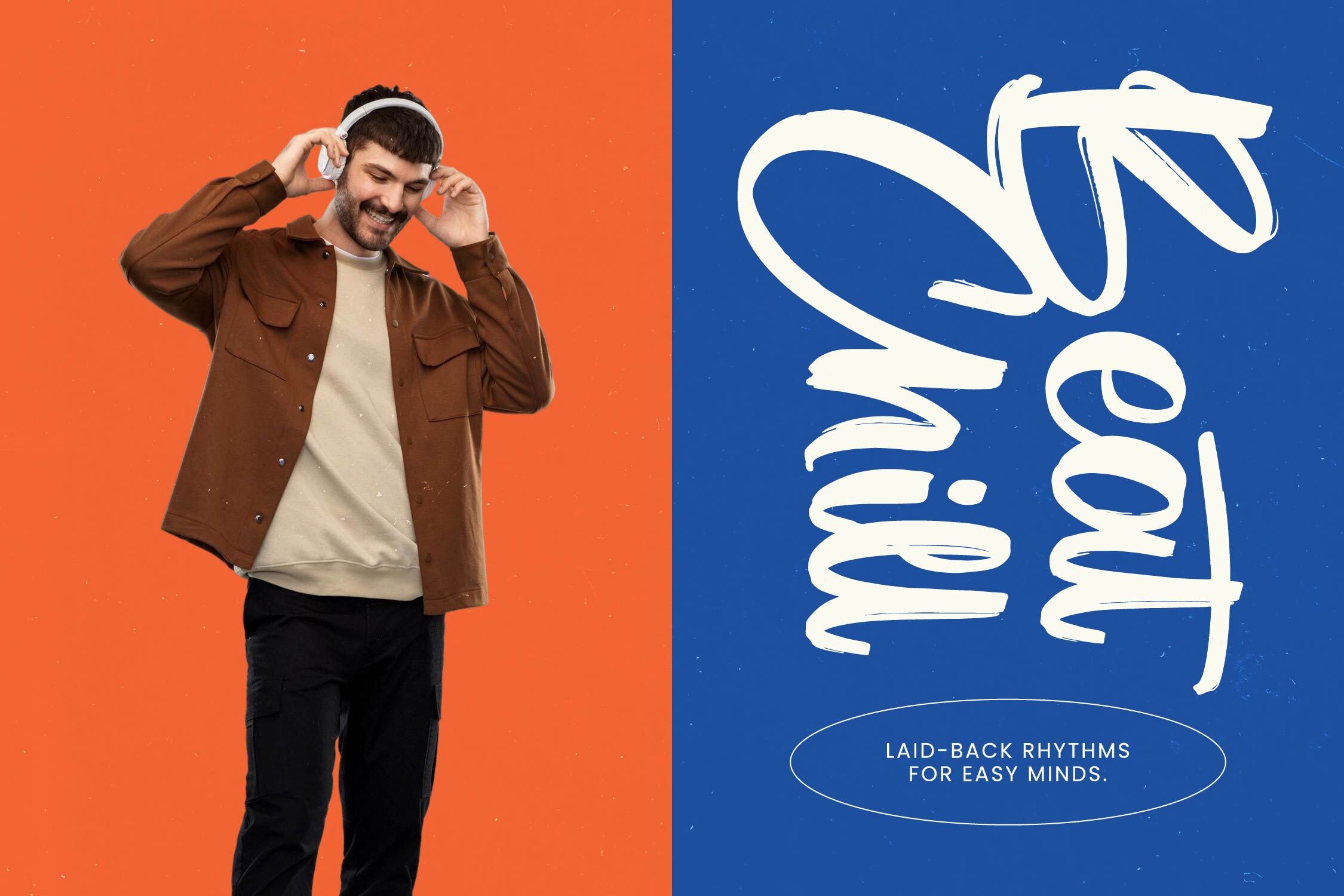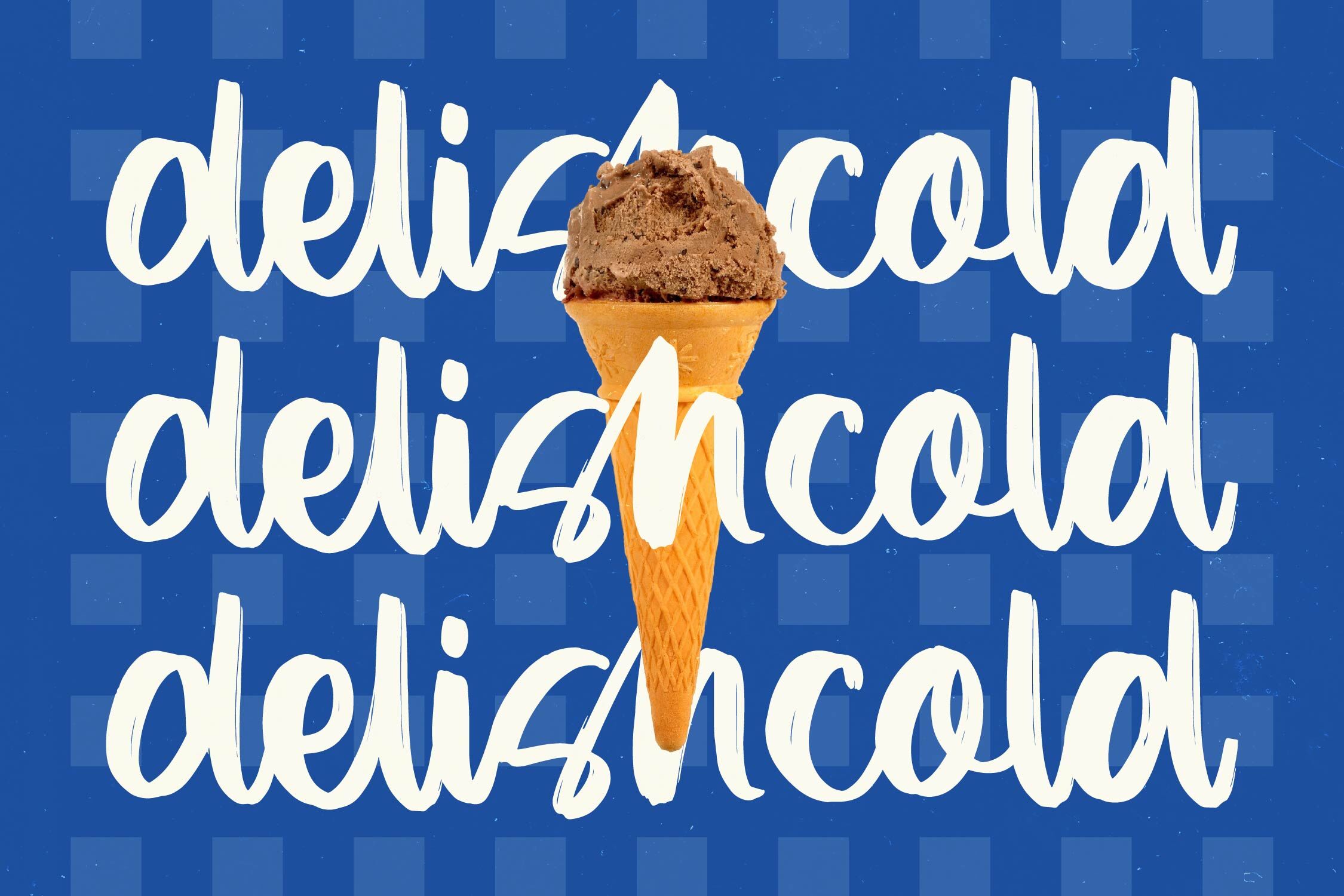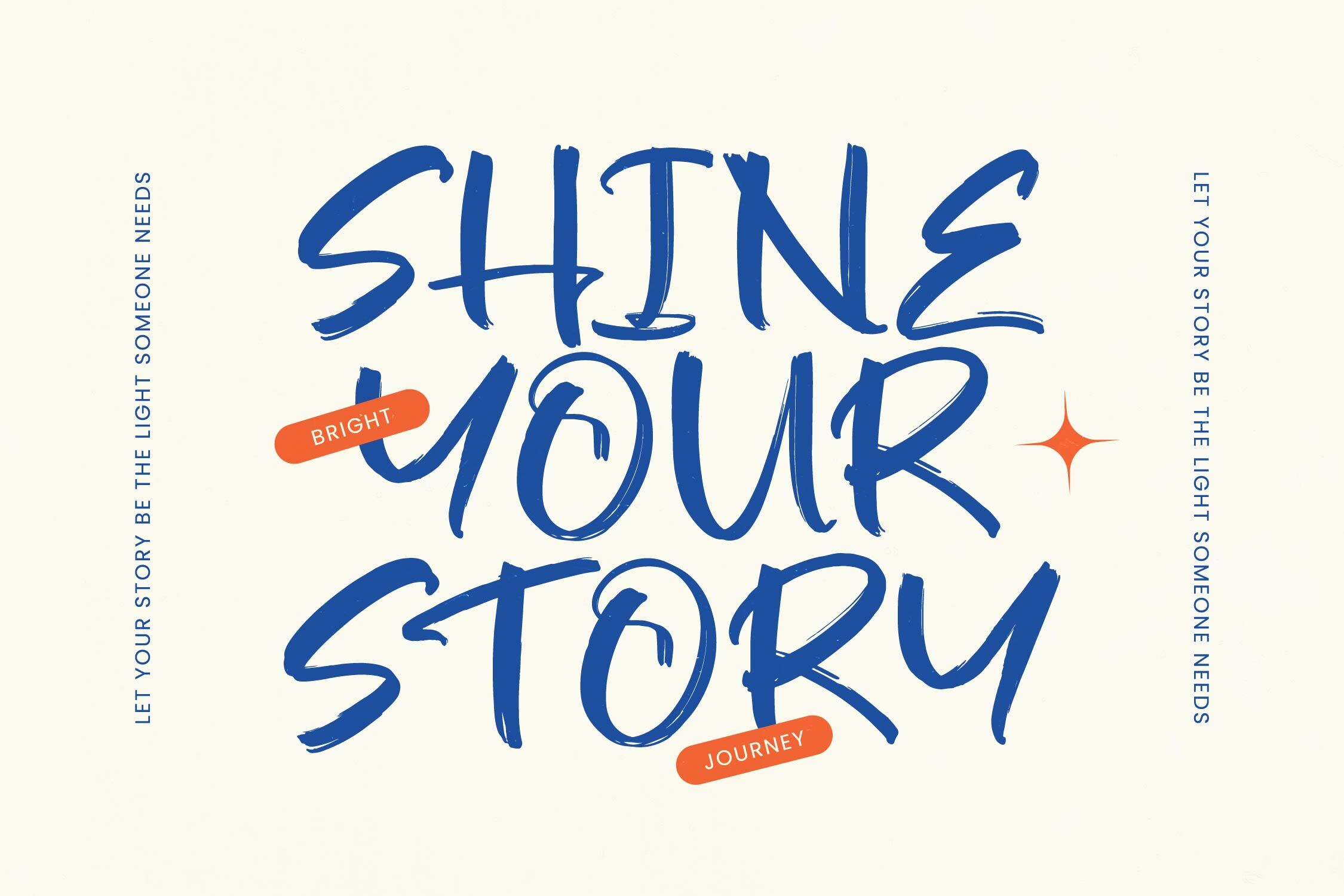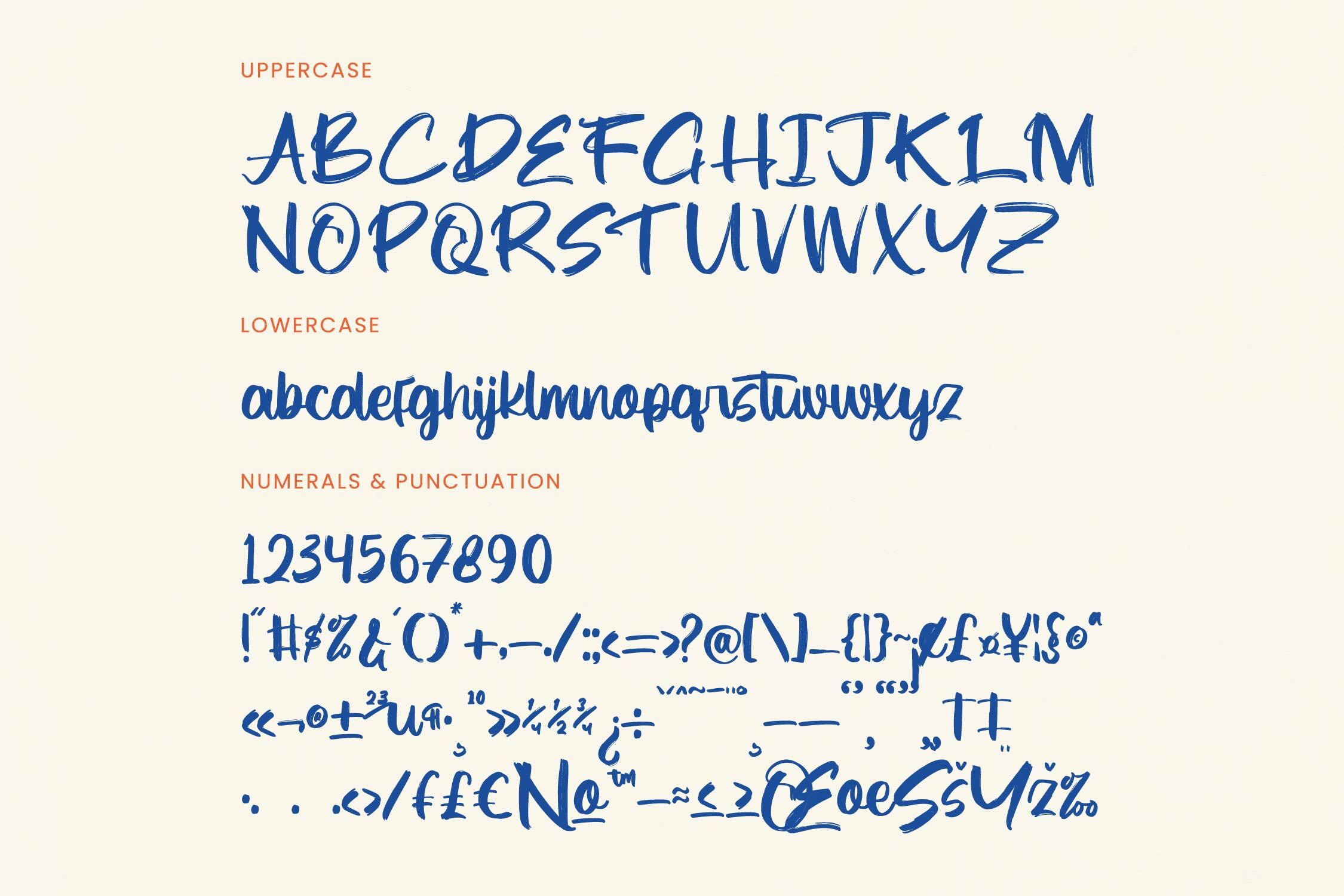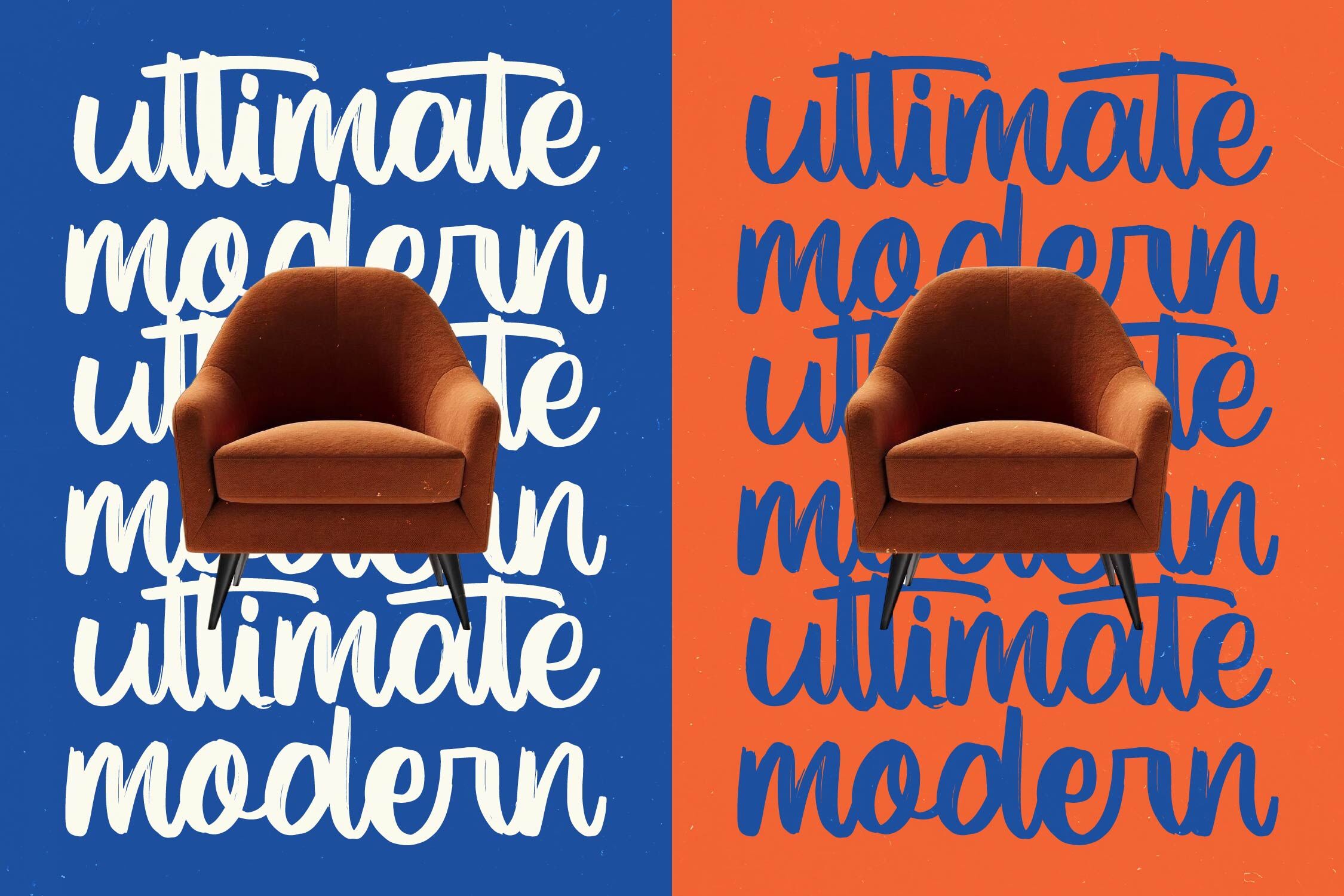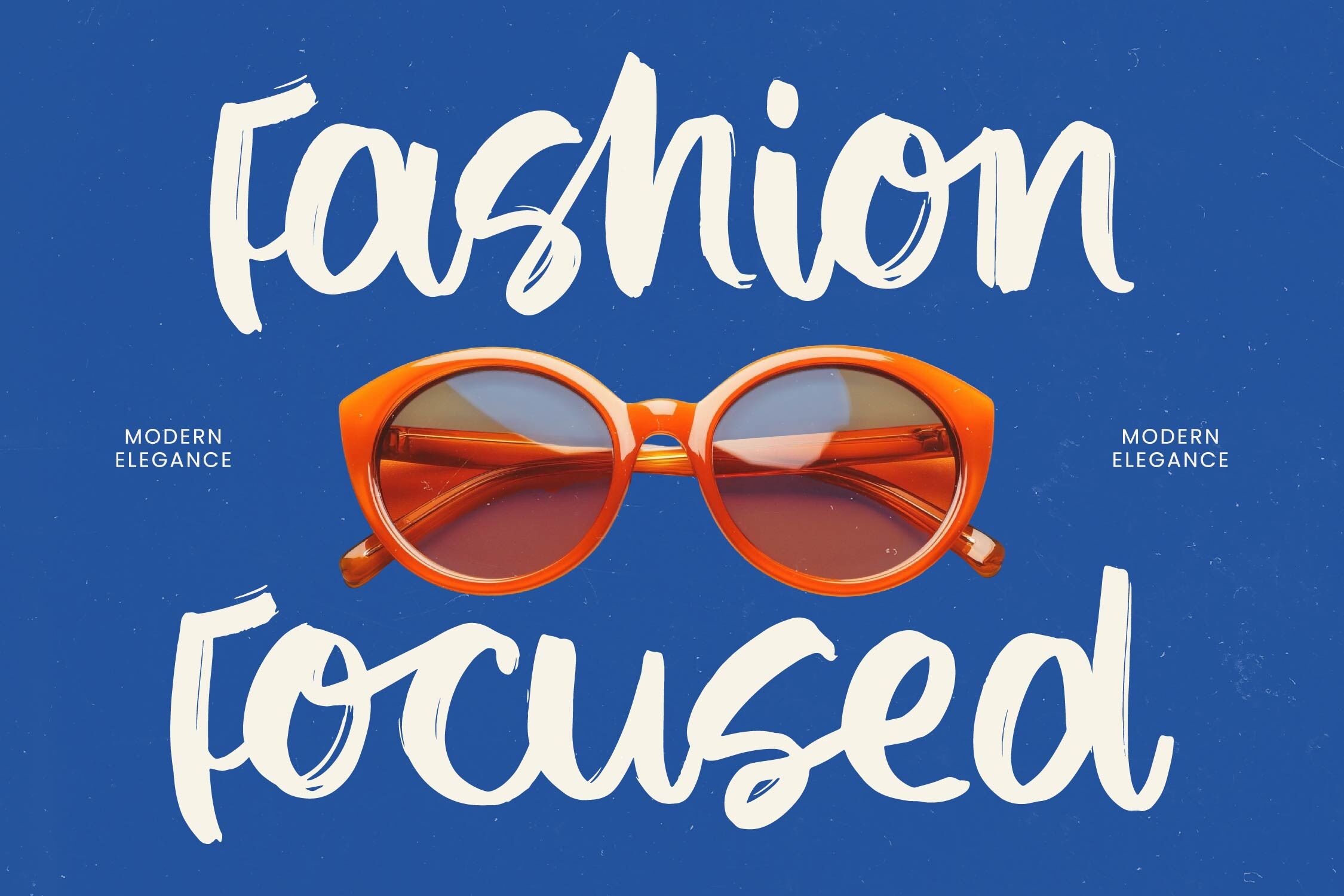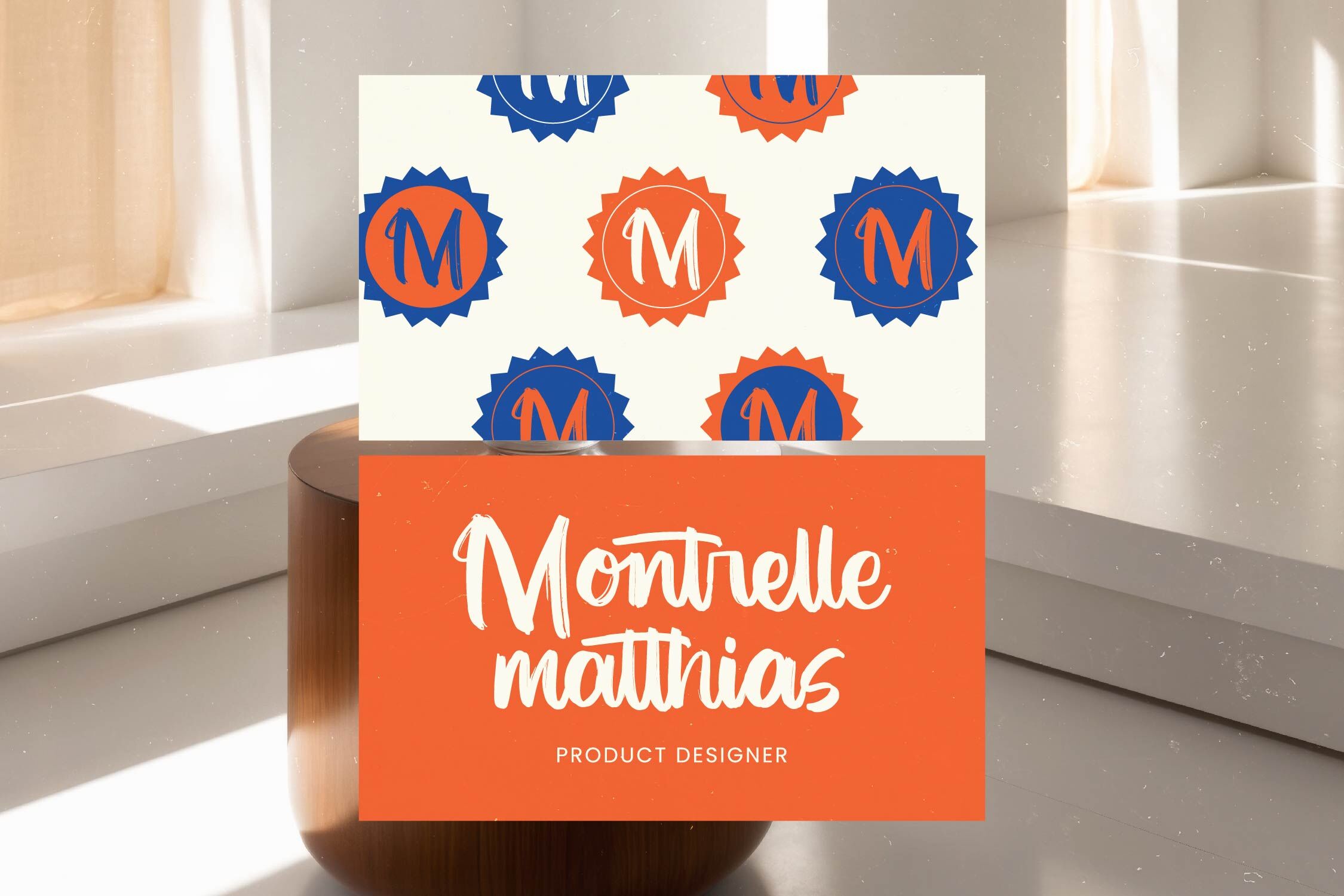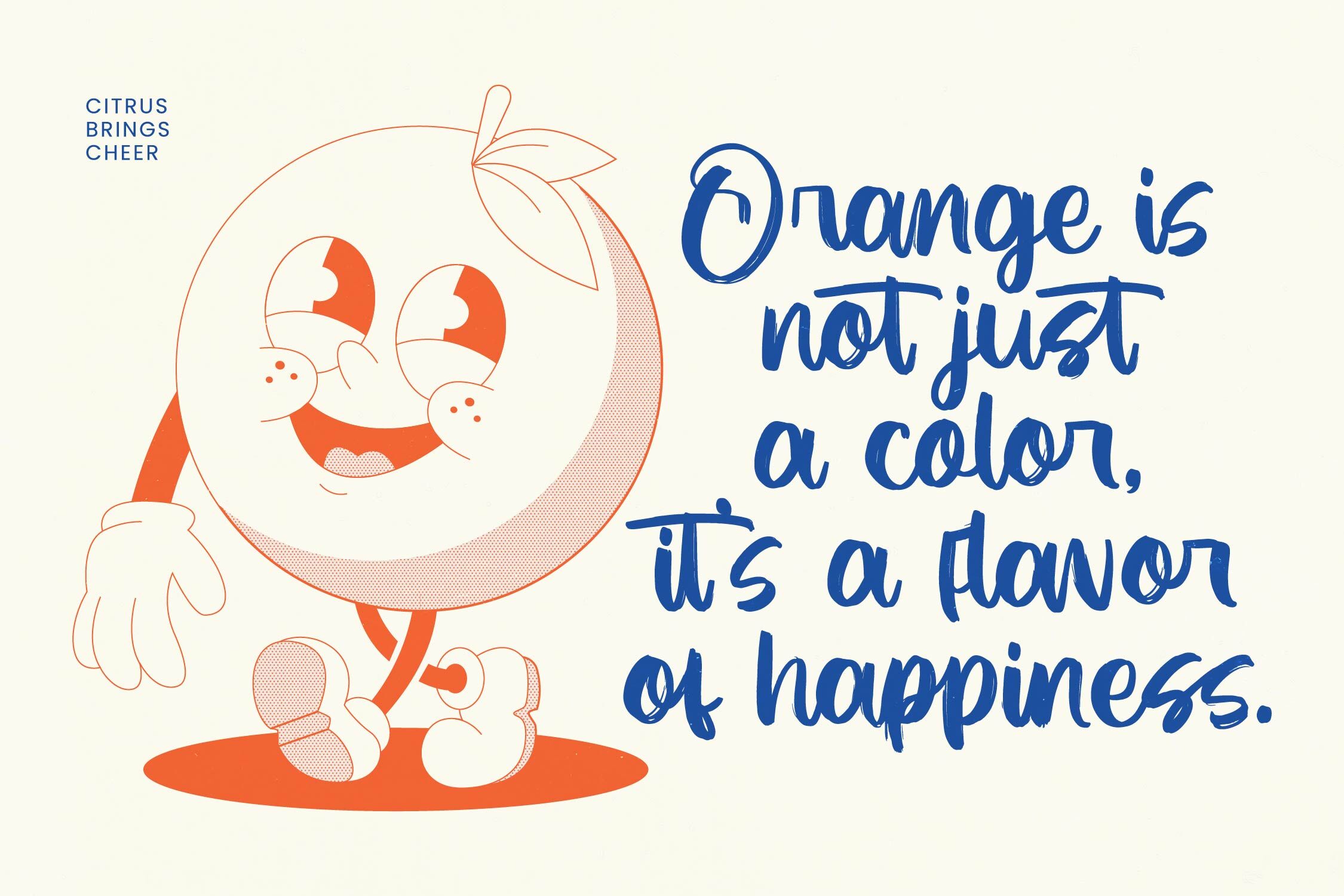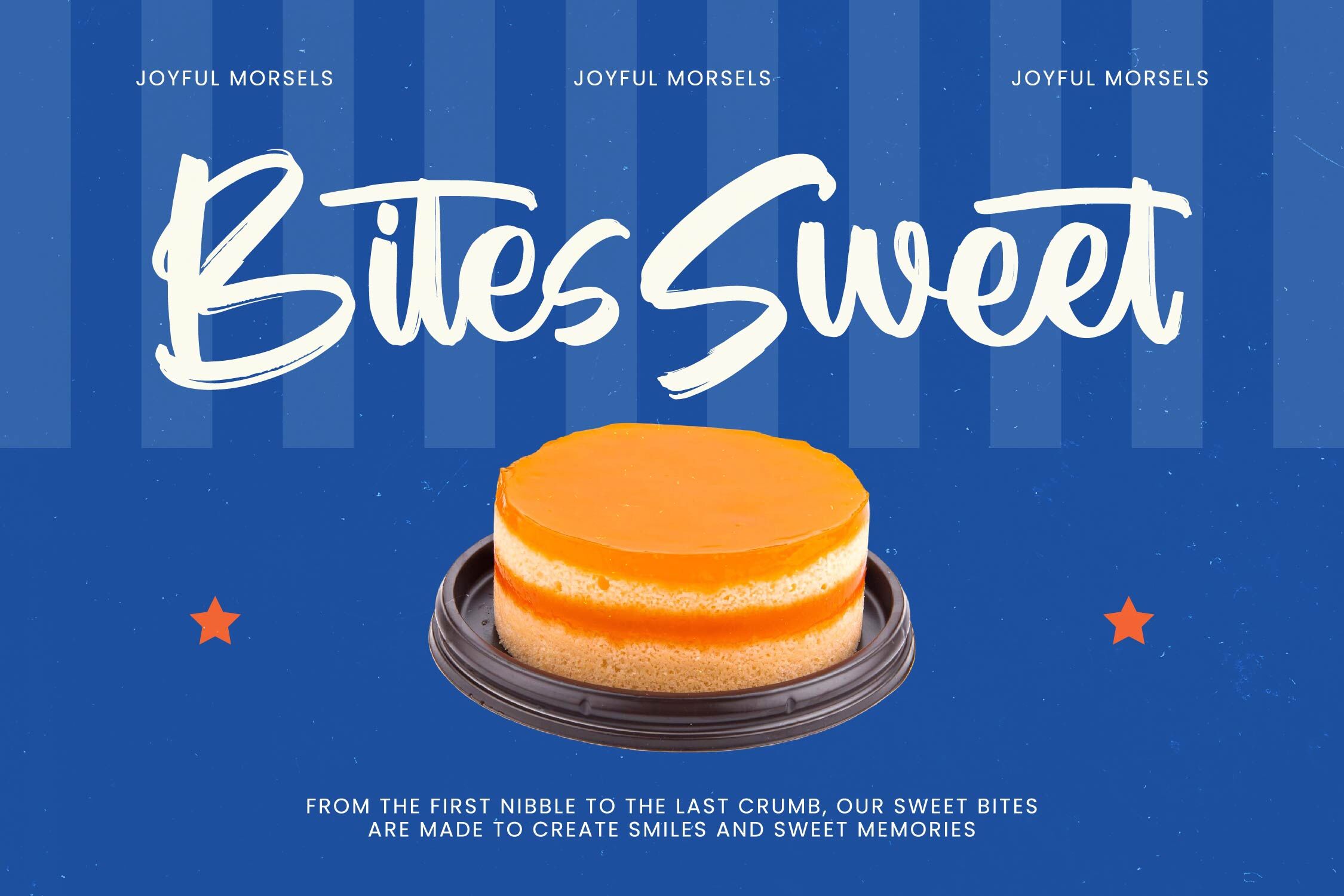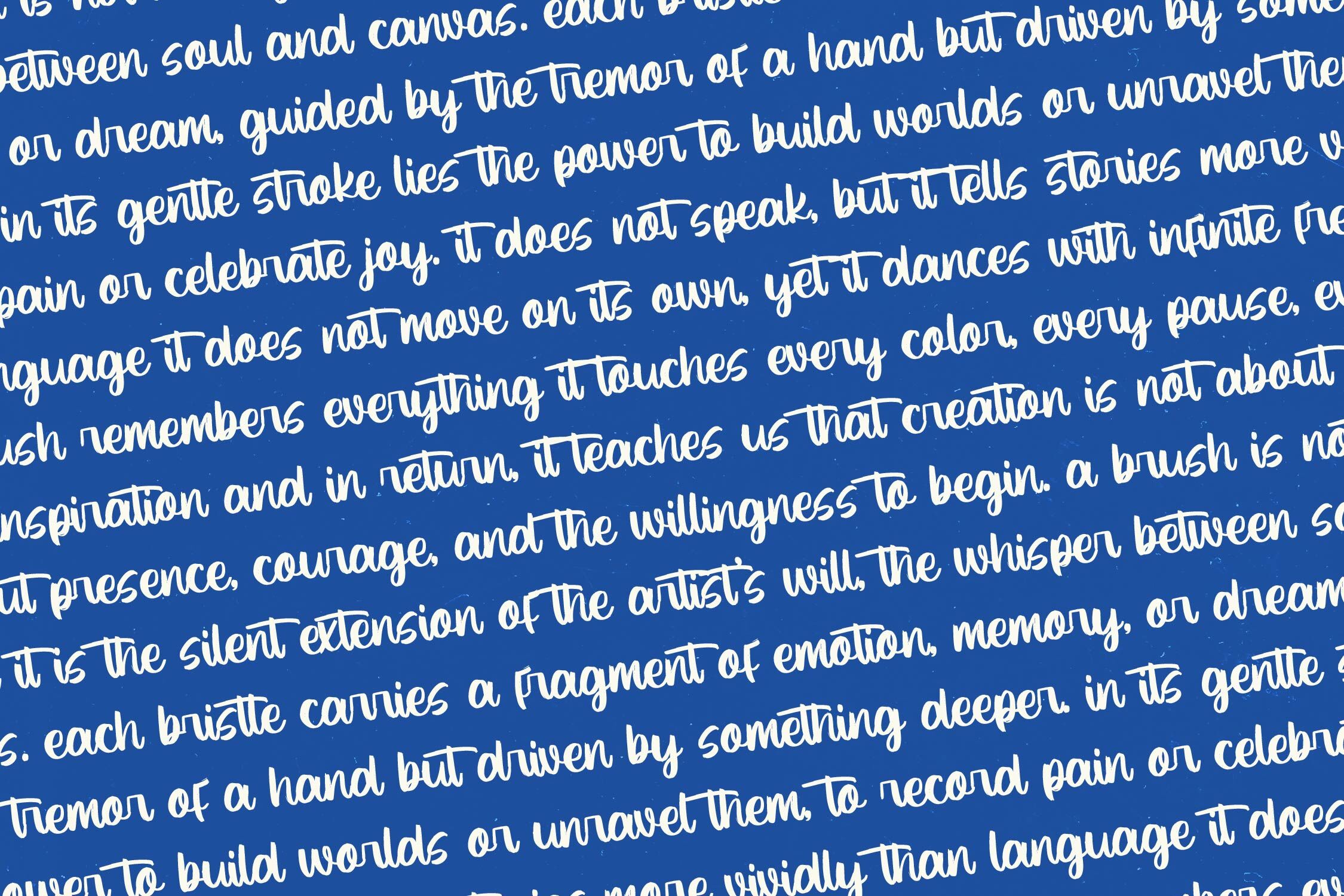
Factual Reality - Modern Brush Font
Factual Reality - Modern Brush Font , from Letterena, is a Luxury Script font, suitable for any projects such as: logos, branding projects, homeware designs, product packaging, mugs, quotes, posters, shopping bags, t-shirts, book covers, name card, invitation cards, greeting cards, label, photography, watermark, special events, and all your other luxury and beautiful projects that need a Luxury Script taste.